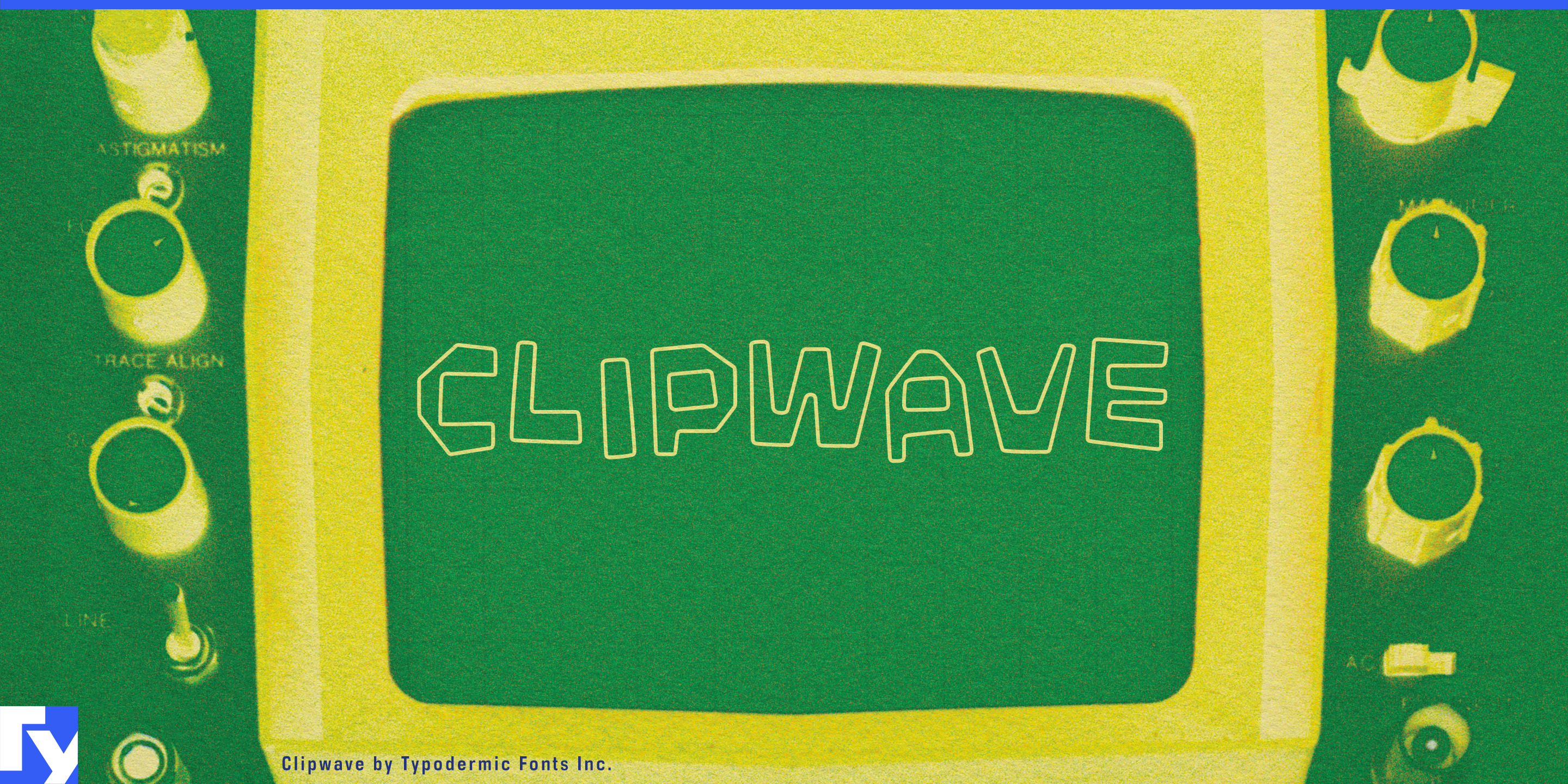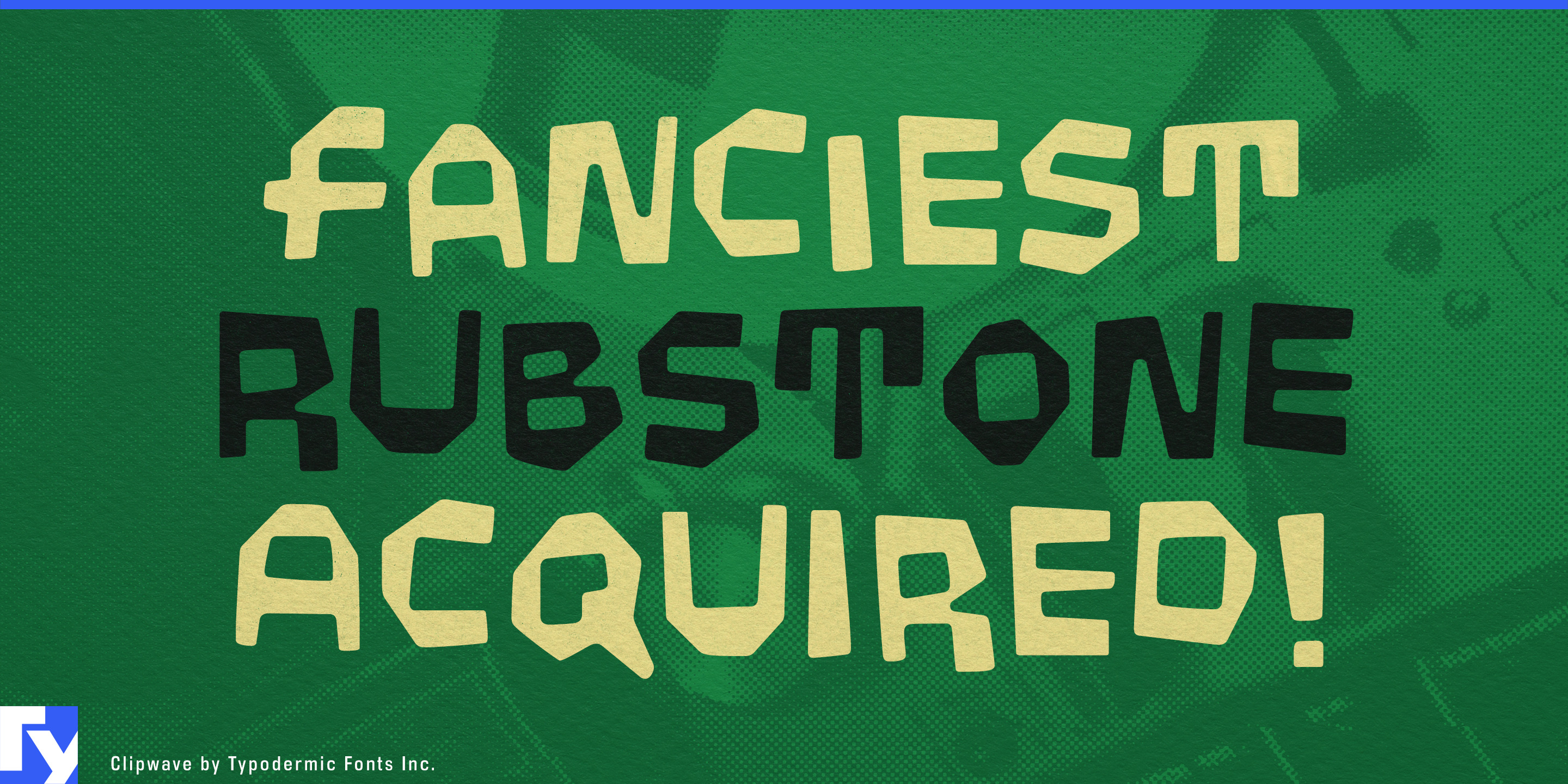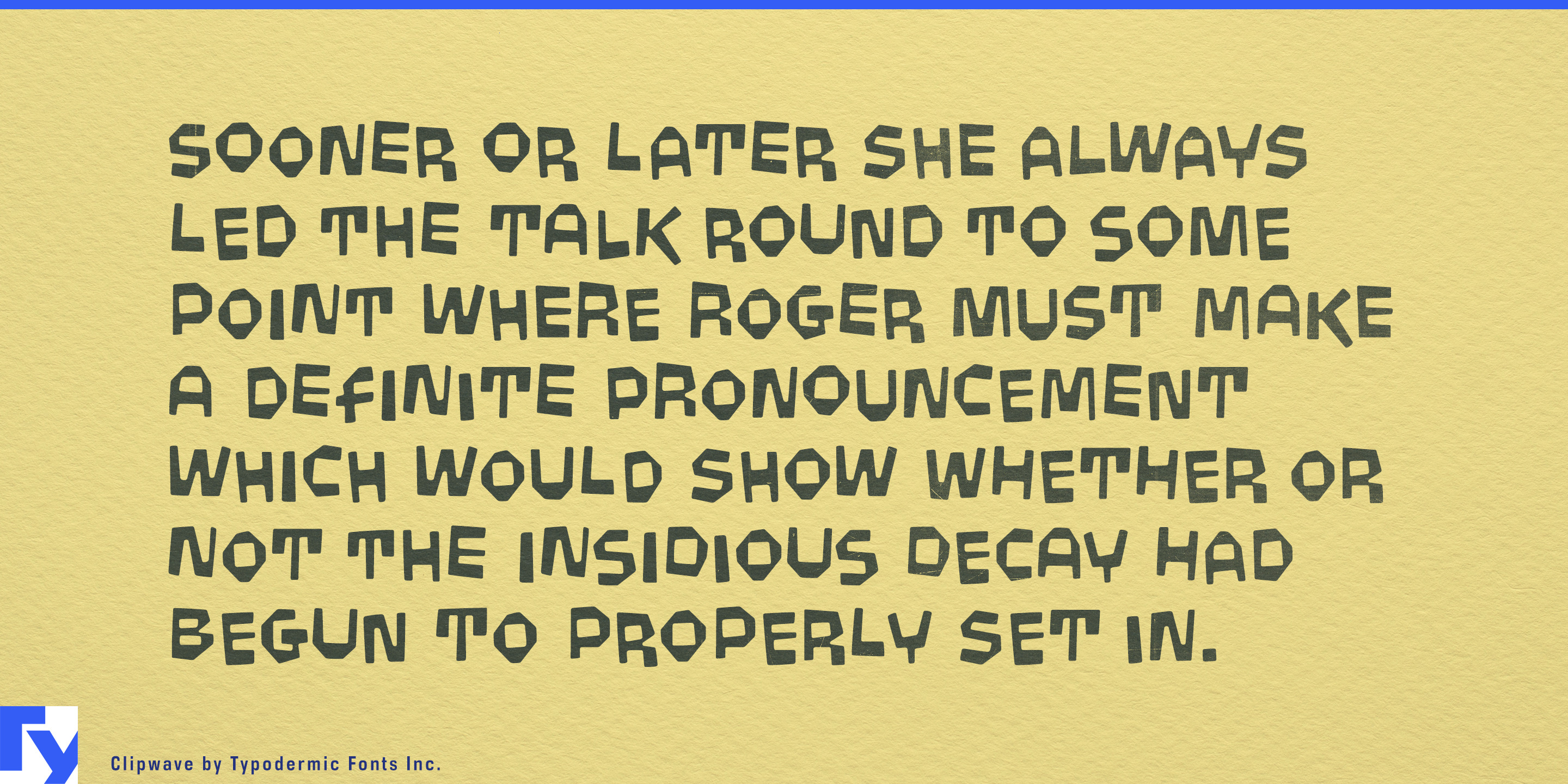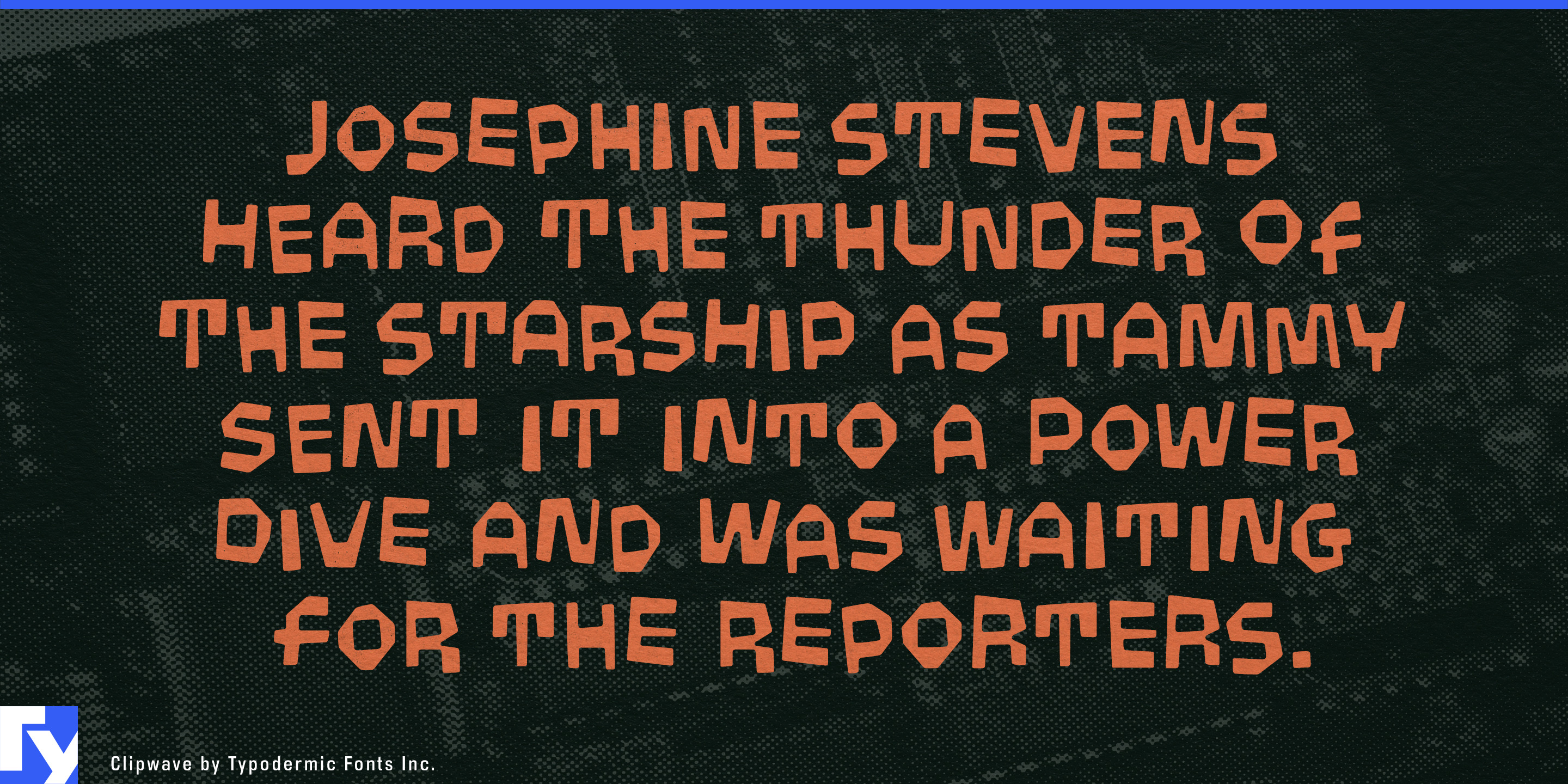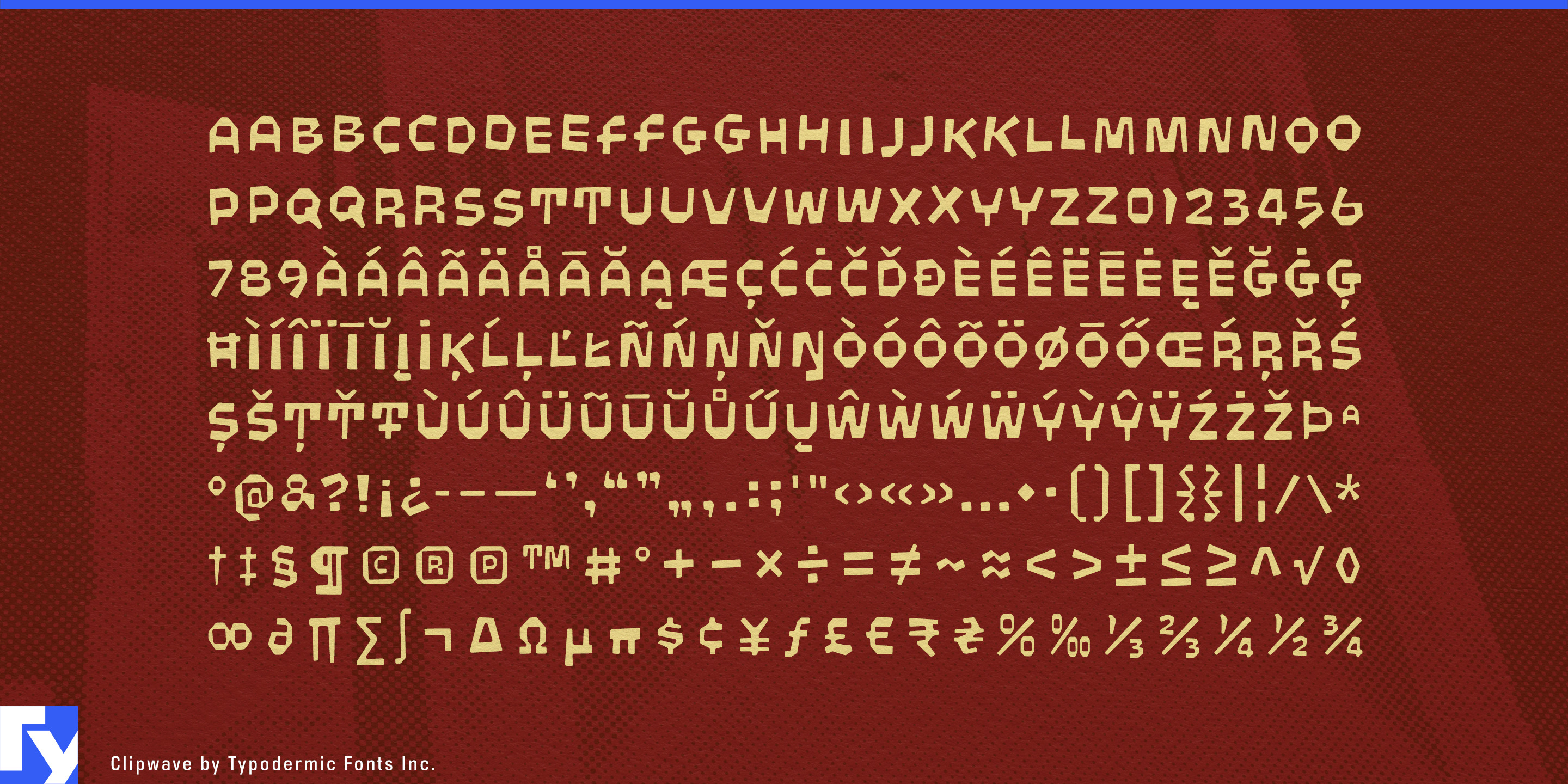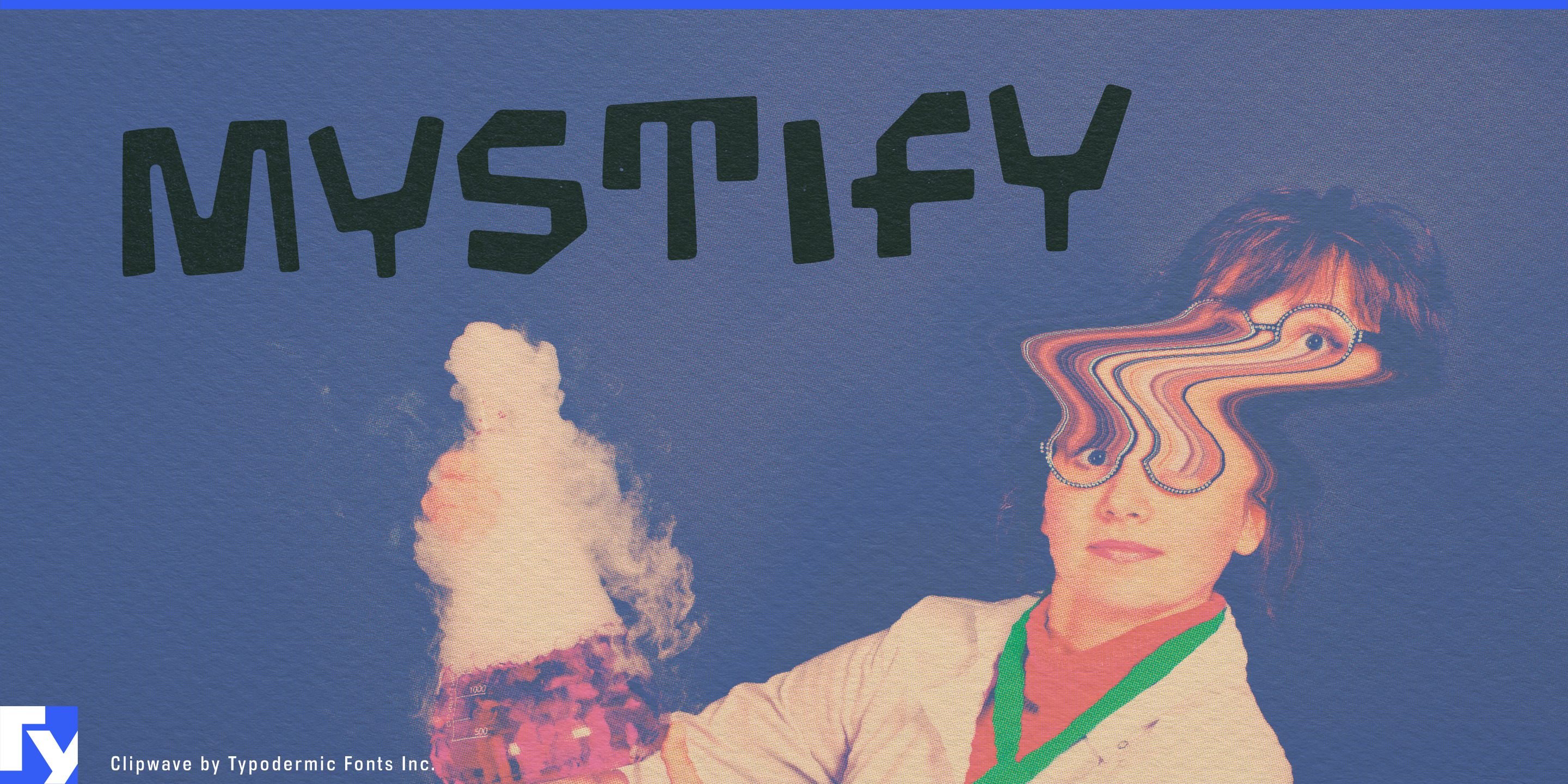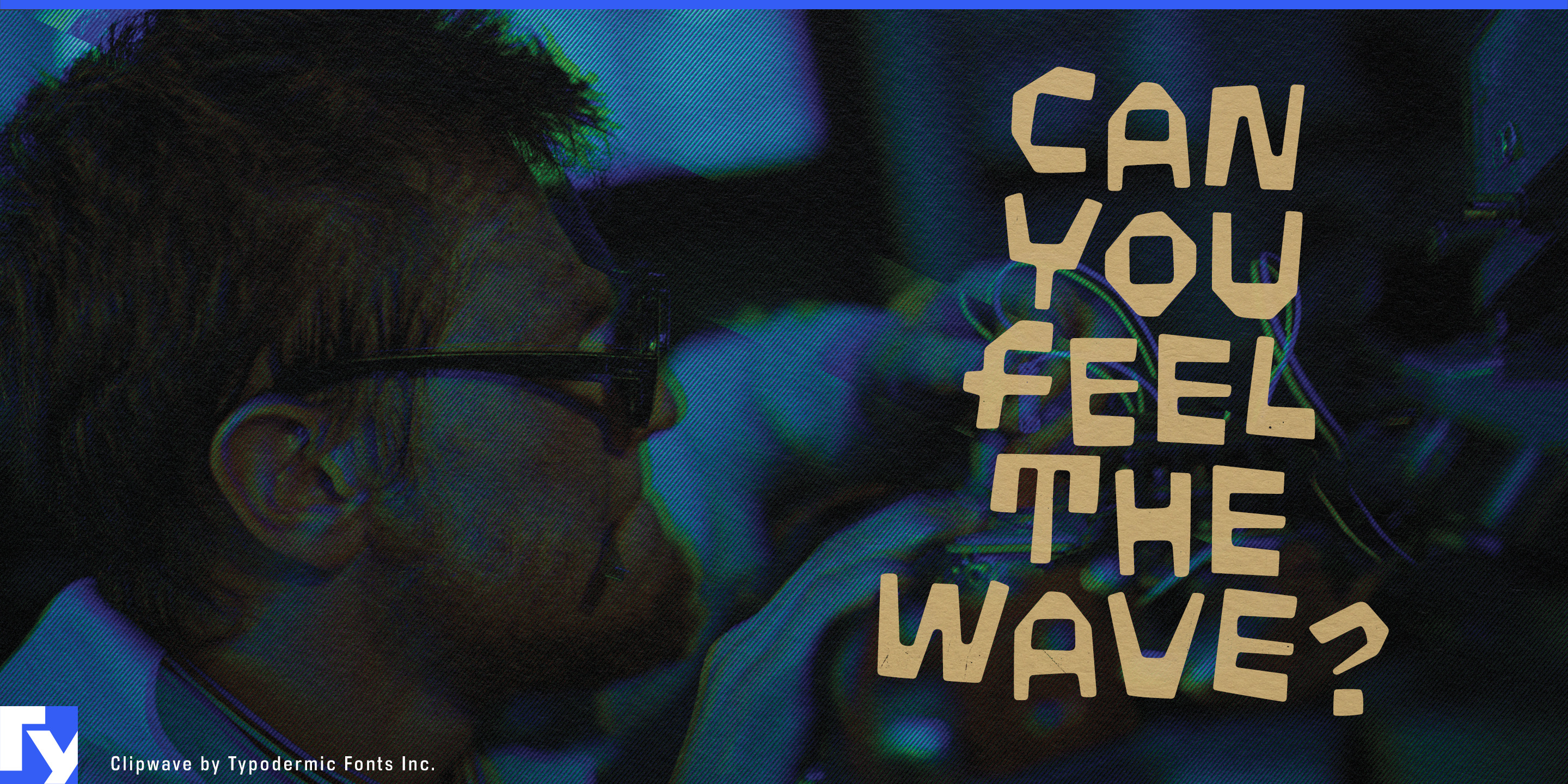
Clipwave
Clipwave is where precision meets imperfection, and the result is anything but ordinary. Its laser-traced letterforms carry a subtle jitter, like the path of a restless plotting machine, giving each word a presence that feels alive. Instead of sterile, mechanical repetition, Clipwave uses automatic ligatures to shuffle characters into a pseudorandomized sequence—keeping your headlines, posters, or titles visually fresh every time you type.
This is a display font built for designers who want impact without losing control. It’s bold enough for sci-fi and tech projects, but grounded in practical readability—even in low-resolution, high-noise environments. Clipwave holds its edge on everything from streaming overlays and indie game covers to retro-tech event flyers and underground music promos. Real monospaced and tech-inspired fonts can feel cold or difficult to work with; Clipwave keeps the quirk and the personality but dials back the friction, making it as easy to drop into your workflow as it is hard for viewers to ignore.
For branding that needs to feel inventive, for titles that need to break formation, for projects that thrive on a little unpredictability—Clipwave is your signal. Tune in, turn up, and let every letter carry your message with energy and intent.